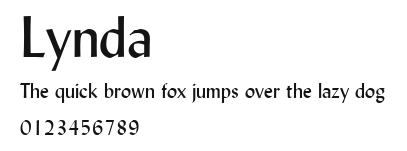
Lynda Preview
• Font Name: Lynda
• Full Font Name: Lynda Normal
About Lynda.ttf
Lynda.ttf is a modern, elegant sans-serif font designed for ultimate readability and visual harmony. Perfect for branding, headlines, web design, and print materials.